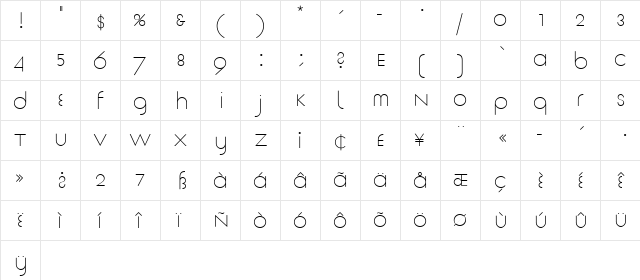
TschicholdArchiType Normal
Design Context for TschicholdArchiType Typeface
TschicholdArchiType offers clean, dependable letterforms without strong stylistic allegiance, making it a practical choice for designers who need flexibility.